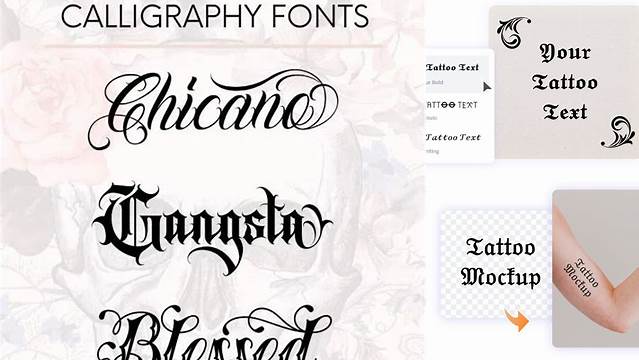
Fonts Tattoo Online: Your Guide To Perfect Ink
Are you guys thinking about getting a tattoo? Awesome! But hold up, before you jump in and get inked, let's talk about something super important: the font. Choosing the right font for your tattoo is like picking the perfect outfit; it can totally make or break the whole look. Don't worry, I'm here to guide you through the world of fonts tattoo online, so you can find the perfect style to match your personality and the message you want to send. We'll dive into where to find amazing fonts, what styles are trending, and how to make sure your tattoo artist can bring your vision to life. Ready to level up your tattoo game? Let's get started!
The Importance of Choosing the Right Tattoo Font
Alright, let's be real. Your tattoo is going to be on your body forever. That's a long time! So, choosing the right font isn't just a small detail; it's a huge part of the overall design and meaning. Think about it: the font you choose can totally change the vibe of your tattoo. A delicate script font can give off a romantic and feminine feel, while a bold, blocky font might scream strength and confidence. Finding fonts tattoo online is the first step. The font needs to speak to you and represent who you are, or what you believe in. This is where the real fun begins, finding the font that is uniquely you.
Fonts tattoo online is more than just a pretty design; it's a way to communicate a message, a memory, or a feeling. The right font can complement your chosen image or text, adding depth and personality. If you're going for a classic look, a timeless font like Times New Roman or Garamond might be perfect. Want something a little more edgy? Try a distressed or graffiti-style font. And don't forget to consider the placement of your tattoo. A small, delicate font might work great on your wrist, but a larger, bolder font might be better suited for your back or arm. Choosing the right font also impacts how well the tattoo ages. Thin, delicate lines can blur and fade over time, while bolder fonts tend to hold their shape better. That’s why selecting the right font is essential, to ensure your tattoo still looks awesome years down the line. Consider your tattoo's meaning, the placement, and your personal style.
Don't rush this process! Spend some time exploring different fonts, testing out variations, and seeing how they look on your skin. Many fonts tattoo online offer online font previews, where you can input your text and see how it will look in different styles. This is super helpful for visualizing the final product and making sure you're happy with your choice. Additionally, consider the skill of your tattoo artist. Some fonts require a high level of detail and precision, so you'll want to make sure your artist is up to the task. They can also offer valuable insights into the best font choices for your design and placement. Trust me, taking the time to choose the perfect font now will save you from any tattoo regrets later! Getting a tattoo is a big decision, so don't take it lightly. Do your research, explore all the options, and find a font that truly resonates with you. The best fonts tattoo online will help you find the perfect choice. It's about the message, the style, and how it will last through the years, so pick wisely and you'll have a tattoo you'll love for a lifetime.
Where to Find Amazing Fonts Tattoo Online
Okay, so you're ready to start your font search? Awesome! But where do you even begin? Don't worry, I've got you covered. There are tons of fantastic resources online where you can discover a world of fonts. Finding fonts tattoo online is easier than you think, and here are some of my top picks:
Font Websites: Websites like Google Fonts, DaFont, and Font Squirrel are treasure troves of free fonts. You can easily browse by style, popularity, or keyword, making it easy to find the perfect font for your tattoo. These sites usually offer previews, so you can see how your text looks in different fonts before you download them. Also, they have a massive collection, with options that range from classic to modern, and everything in between. Using these sites, you can explore different font families, experiment with various styles, and find the perfect match for your design.
Font Libraries: Premium font libraries such as Adobe Fonts (if you have an Adobe Creative Cloud subscription) offer a curated selection of high-quality fonts. These fonts are usually more professionally designed and may come with advanced features like multiple weights and styles. This can be a great option if you're looking for something unique and you're willing to pay a bit extra for quality. Access to a vast selection of fonts with exceptional design and features can set your tattoo design apart, ensuring a polished and professional look.
Custom Font Designers: If you have a specific idea in mind, or you can't find anything that quite fits your vision, consider hiring a custom font designer. They can create a unique font tailored to your exact specifications. This is a great way to ensure your tattoo is truly one-of-a-kind. Partnering with a professional font designer can bring your most unique tattoo vision to life. They have the skills and the knowledge to translate your ideas into a custom font that is perfect for your body art.
Tattoo Artist's Resources: Many tattoo artists have their own font collections, or they can suggest fonts that they know work well for tattoos. They also know which fonts will translate well on skin. Don't hesitate to ask your artist for recommendations or to browse their font options. They are experts in this field and can offer invaluable advice based on your design and placement. Collaboration with your tattoo artist is critical for a great outcome. They know the best fonts for tattooing and can provide expert recommendations.
Remember to always check the license of the font before using it for a commercial purpose, like a tattoo design. Some fonts are free for personal use but require a license for commercial use. This will ensure you're respecting the designer's work and avoiding any legal issues.
Trending Tattoo Font Styles
Okay, let's talk about some of the most popular and stylish fonts tattoo online right now. Knowing what's trending can give you a good starting point for your search and help you get inspired. Here are a few styles that are dominating the tattoo scene:
Script Fonts: Script fonts remain a timeless choice for tattoos. They offer an elegant and personal touch, perfect for names, quotes, or special dates. From classic calligraphy to modern brushstrokes, there's a script font to suit every taste. Script fonts are also great for adding a romantic or sentimental feel to your tattoo. Consider choosing a script font that reflects your handwriting style to make your tattoo even more personal and unique. The best part is that they can be customized with different flourishes and swirls, making them even more special.
Minimalist Fonts: In recent years, minimalist fonts have gained immense popularity. These fonts are simple, clean, and often feature thin lines and a modern aesthetic. They're perfect for small, subtle tattoos that convey a powerful message without being overly complex. Minimalist fonts are also versatile and can be easily incorporated into any tattoo design. Many people love the modern, clean look that minimalist fonts bring, making them perfect for anyone who wants something simple and chic. They look great on any skin tone.
Blackletter Fonts: If you're going for a more vintage or gothic look, blackletter fonts (also known as gothic fonts) are a great choice. These fonts are characterized by their ornate, angular designs and historical roots. They add a touch of boldness and sophistication to any tattoo. Consider using a blackletter font for a quote or a meaningful word that you want to stand out. Blackletter fonts are a great way to get that edgy look, and they offer a classic look that never gets old.
Handwritten Fonts: Handwritten fonts are a way of expressing your individuality and personal touch. These fonts offer a unique and personal touch, making your tattoo feel like a piece of art. You can either choose a font that mimics your handwriting or find one that reflects your personality and the message you want to convey. Handwritten fonts are great for adding a personal touch and a unique artistic style to your tattoo. These fonts can bring personality and artistry to your tattoo.
Geometric Fonts: Geometric fonts are characterized by their clean lines and geometric shapes, making them perfect for modern tattoo designs. These fonts can be used to create a variety of patterns, symbols, and designs. Geometric fonts give a modern and stylish look. These fonts offer a modern aesthetic and can be combined with other elements to create unique designs. These fonts are great for tattoos with a modern, edgy vibe.
Remember, trends come and go, so choose a font that you genuinely love and that represents you. Don't feel pressured to follow trends if they don't align with your personal style.
Working with Your Tattoo Artist: Font Considerations
Alright, you've found your perfect font, now what? It's time to work with your tattoo artist to bring your vision to life. The best fonts tattoo online are nothing without a great artist. Your artist is the expert, and they can help you refine your choice. Here are some key considerations when collaborating with your artist:
Font Size and Placement: Discuss the font size and placement with your artist. A font that looks great on paper might not translate well on your skin if it's too small or placed in a tricky area. Your artist can help you determine the optimal size and placement for your chosen font. They will also give advice on the readability of the font. The placement can also affect the overall design. Proper placement is key to a successful tattoo and is essential for the longevity of your tattoo.
Font Weight and Detail: Consider the weight and detail of your chosen font. Thin, delicate lines can fade over time, while overly intricate fonts can become blurry. Your artist can advise you on the best font weight and detail for your design to ensure your tattoo lasts. The weight will give your tattoo a better appearance. Remember, some fonts are not ideal for tattoos because of the intricate details and small size.
Skin Type and Tone: The artist will consider your skin type and tone when suggesting a font. Different fonts may work better with different skin tones, so your artist can advise you on the best choices for your skin. Some colors and styles look different on different skin types. The artist can also use special techniques to make your tattoo pop.
Test Run: Consider a test run to see how the font looks on your skin. Your artist can create a stencil of the font, so you can visualize the final product before committing. This allows you to make any necessary adjustments and ensure you're happy with the design. Many tattoo artists will offer a preview to help you visualize the final product and ensure it is perfect. This will allow you to visualize the font before it is permanently on your body.
Artist's Expertise: Choose an artist who has experience with the style of font you've chosen. Look at their portfolio to see examples of their work. They must be comfortable with the font style you've chosen. They must be able to handle fine lines and other details.
Communication is Key: Communicate your vision clearly to your artist. Provide them with the font name, size, and placement. Don't be afraid to ask questions and get their feedback. The more details you provide, the better. Effective communication is essential for a successful tattoo. Your artist should be able to understand your vision. They may be able to make suggestions and offer valuable input.
Working with your tattoo artist is a collaborative process. With open communication and a shared vision, you can create a tattoo that you'll love for a lifetime. It's important to trust your artist and listen to their advice, as they have the experience and expertise to bring your vision to life.
Conclusion: Embrace the Ink
So, there you have it! Your ultimate guide to fonts tattoo online. From choosing the right font to working with your artist, I hope this guide has given you all the information you need to create a tattoo that you'll love. Remember, the most important thing is to choose a font that resonates with you and reflects your personality. Have fun with it, be creative, and enjoy the process. With a little research and planning, you'll be well on your way to getting a tattoo you'll be proud to show off for years to come. Now go forth and get inked!